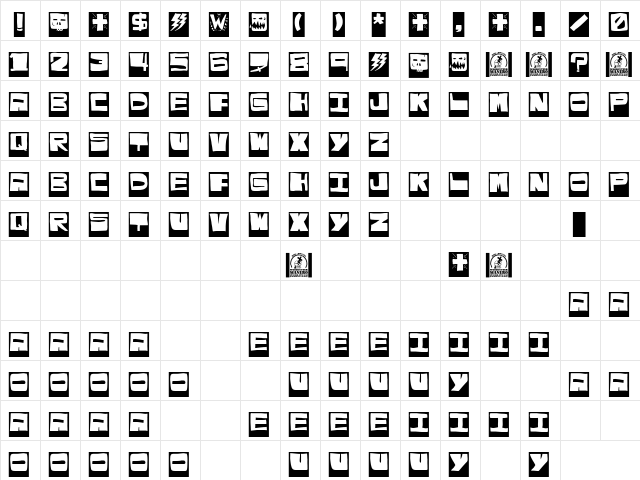
El puto amo Regular
Design Context for El puto amo Typeface
El puto amo is a composed and adaptable typeface that performs quietly and consistently across a wide range of design contexts.